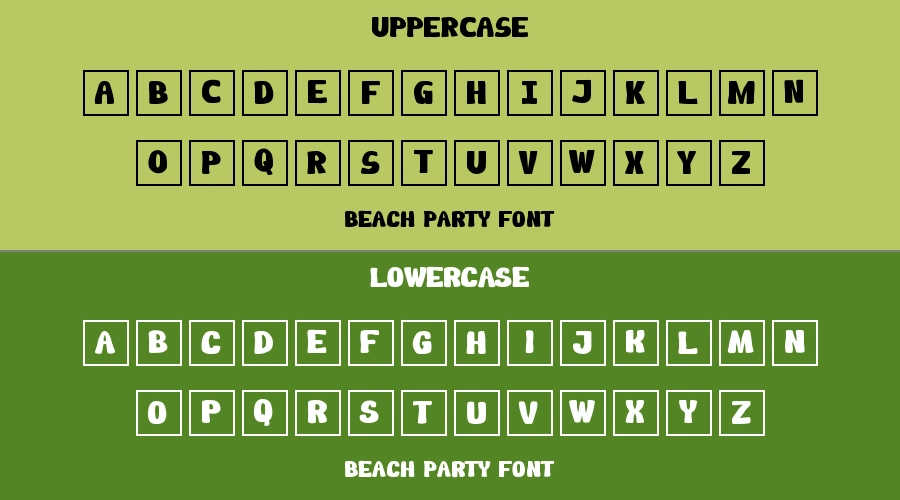
About Beach Party Font
Designed with precision, Beach Party Font merges balanced tension with durability in every character. This versatility makes it particularly effective for formal announcements, where personality and brand power directly impact communication quality. Each letterform demonstrates meticulous craftsmanship.
Technical excellence shines through elements like rounded apexes and superior letters, enhancing typographic versatility. In creative titles settings, Beach Party Font proves its worth through superior screen rendering. The thoughtful execution of joint detail and historical references ensures professional results.